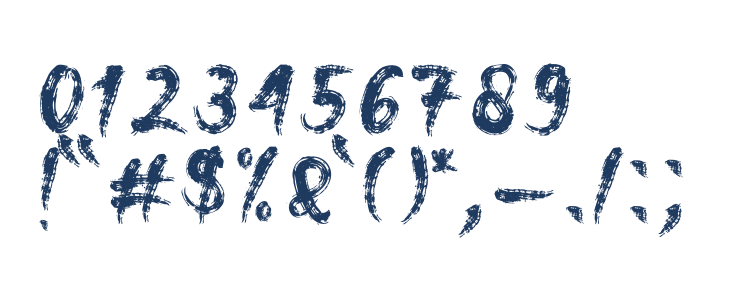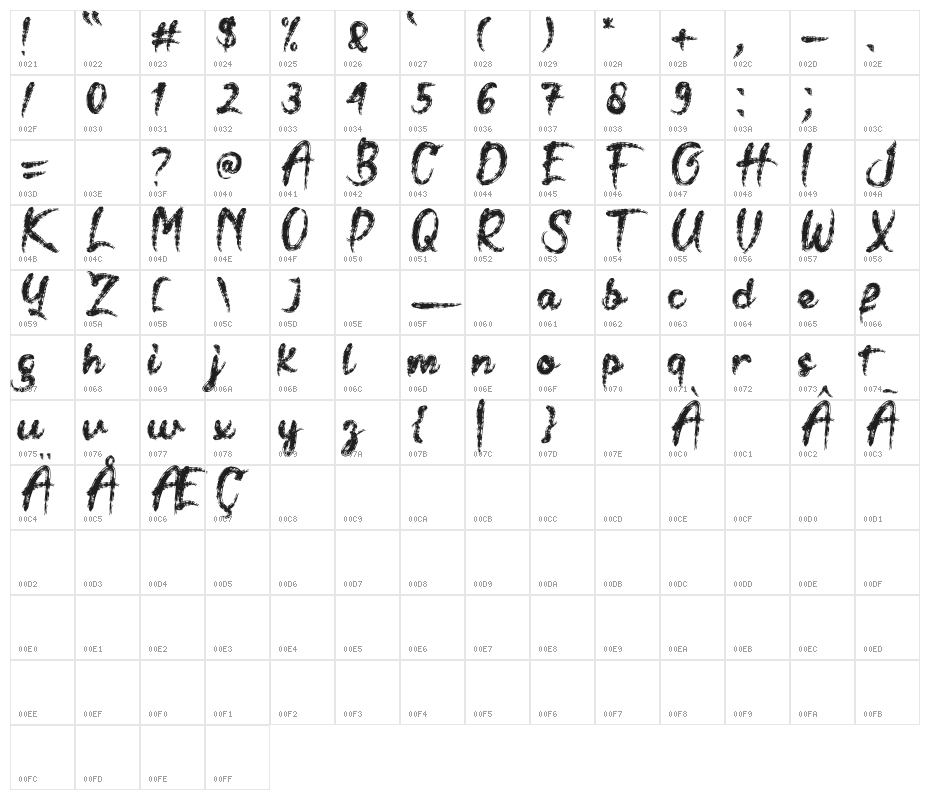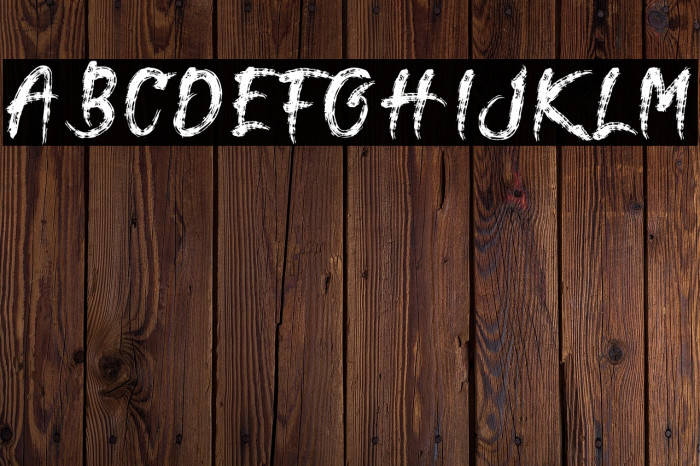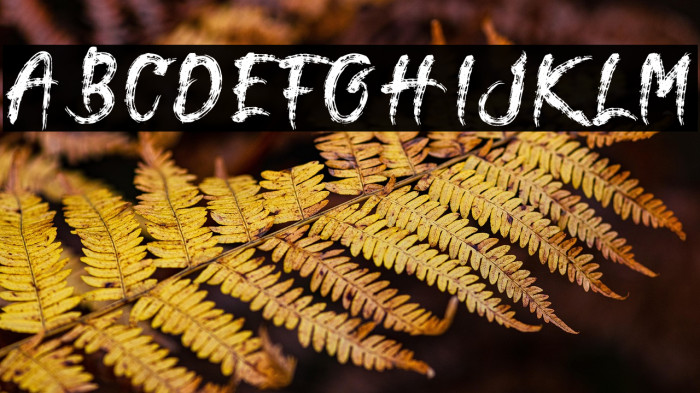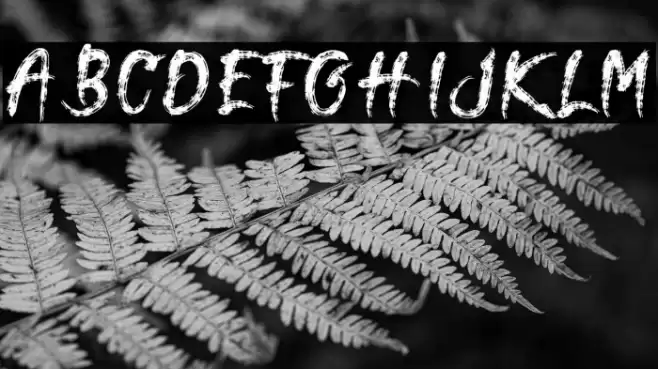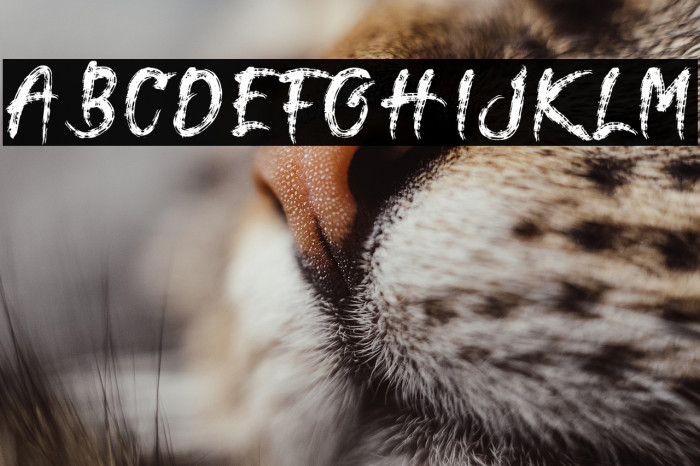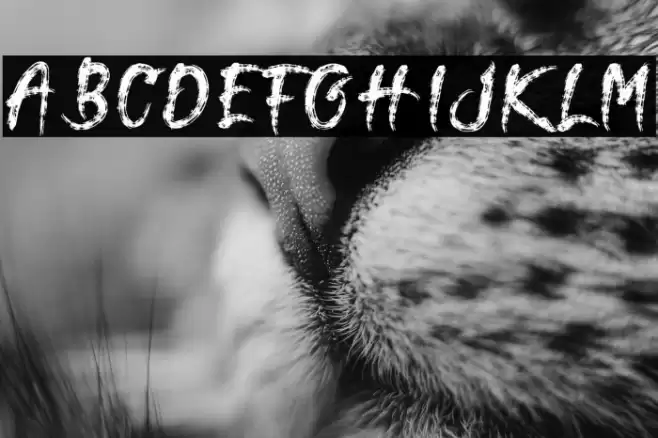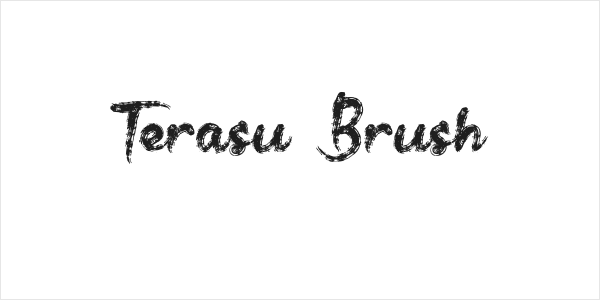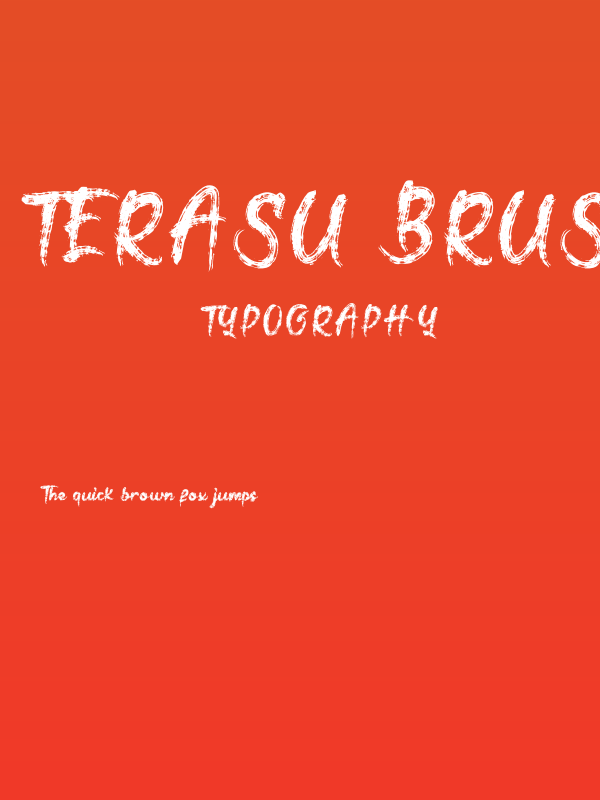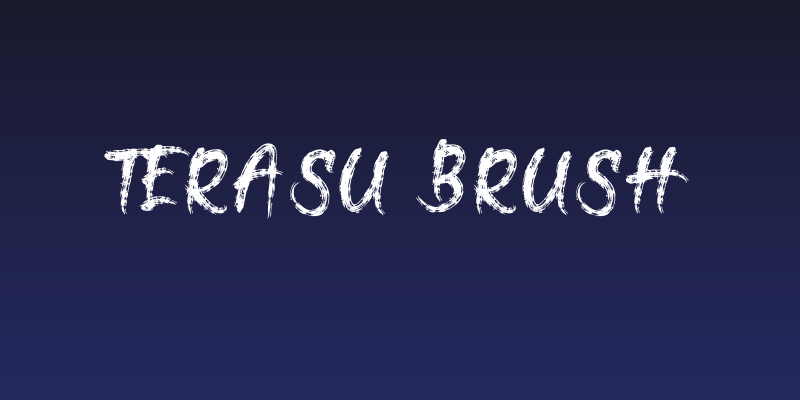
Terasu Brush Font
Terasu Brush Description
This font features a dynamic and expressive brush style, characterized by its bold and textured strokes that mimic the appearance of hand-painted letters. The uppercase and lowercase letters exhibit a consistent brush effect, with varying thickness that adds a sense of movement and energy. The numerals and special characters maintain this artistic flair, making them visually cohesive with the alphabet. The font's rough edges and irregular shapes contribute to its organic and spontaneous feel, ideal for projects that require a personal touch or artistic expression.
| Proposed Projects | Ideal for artistic projects, branding, posters, and any design requiring a bold, expressive touch. |